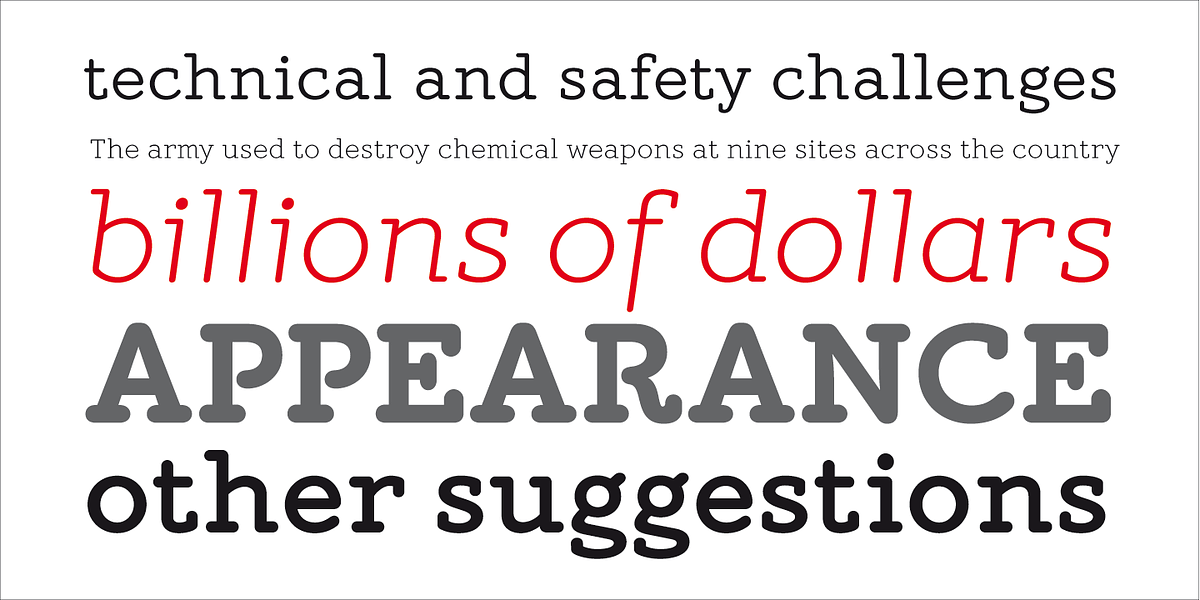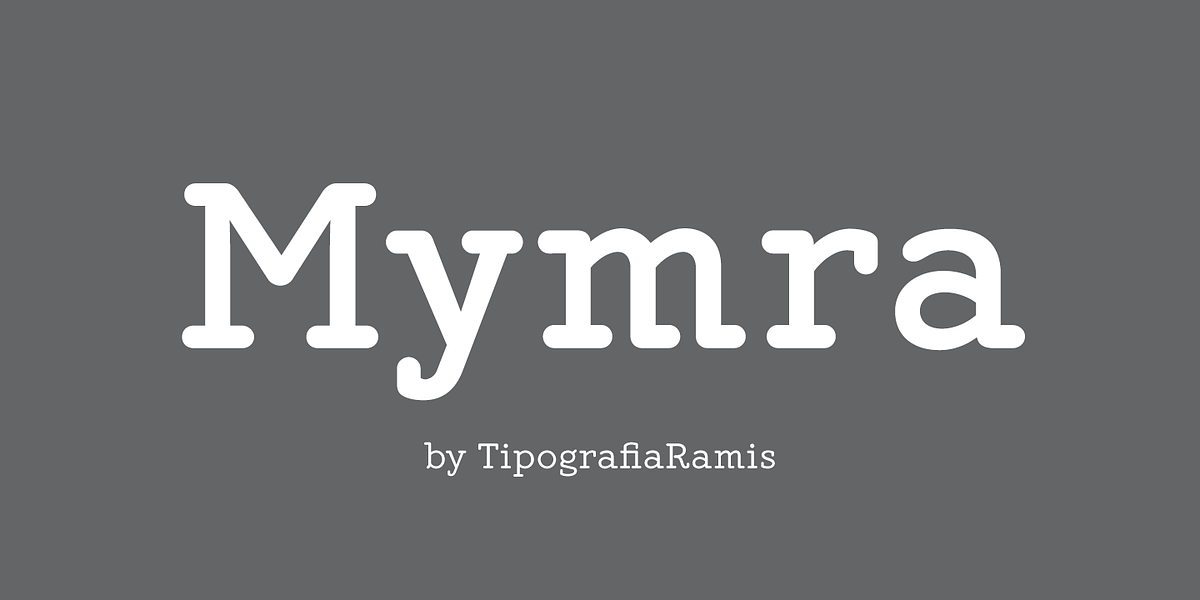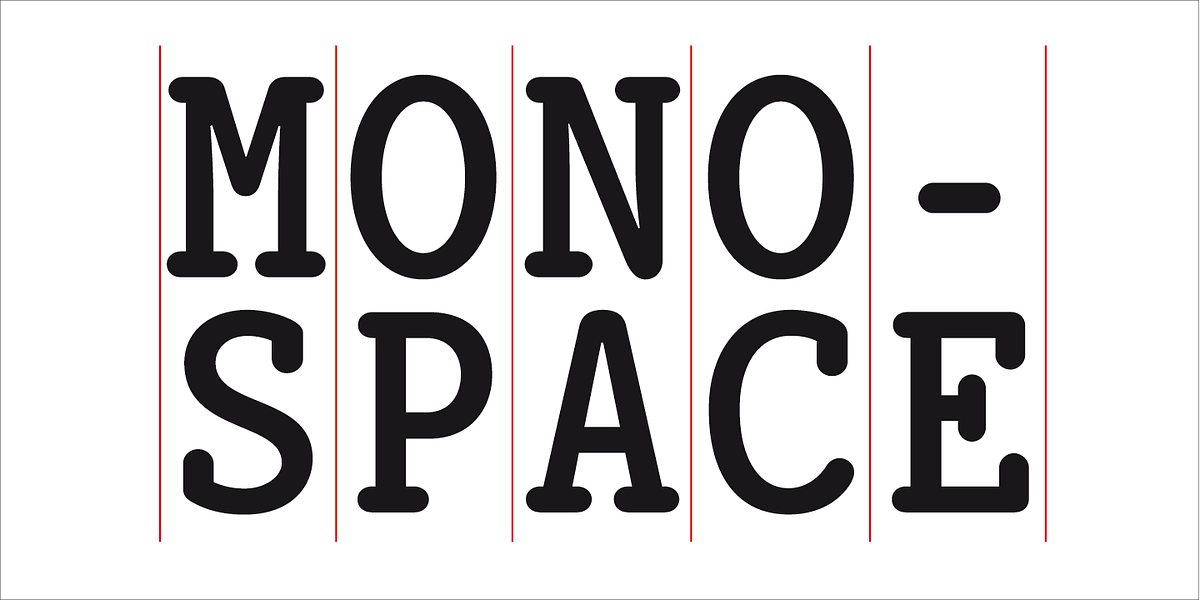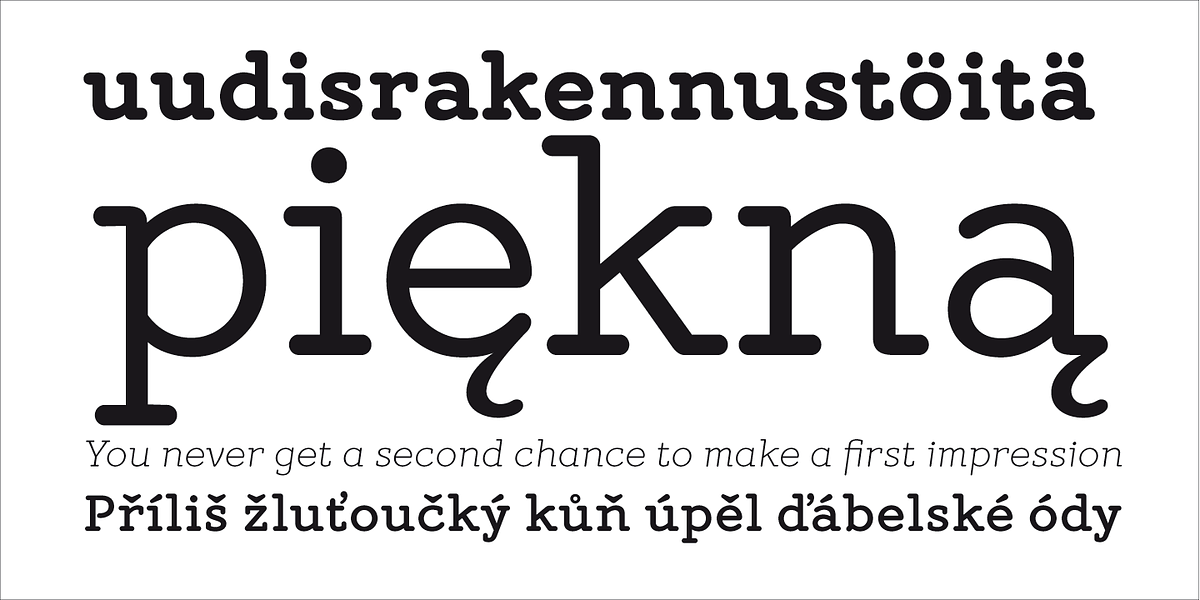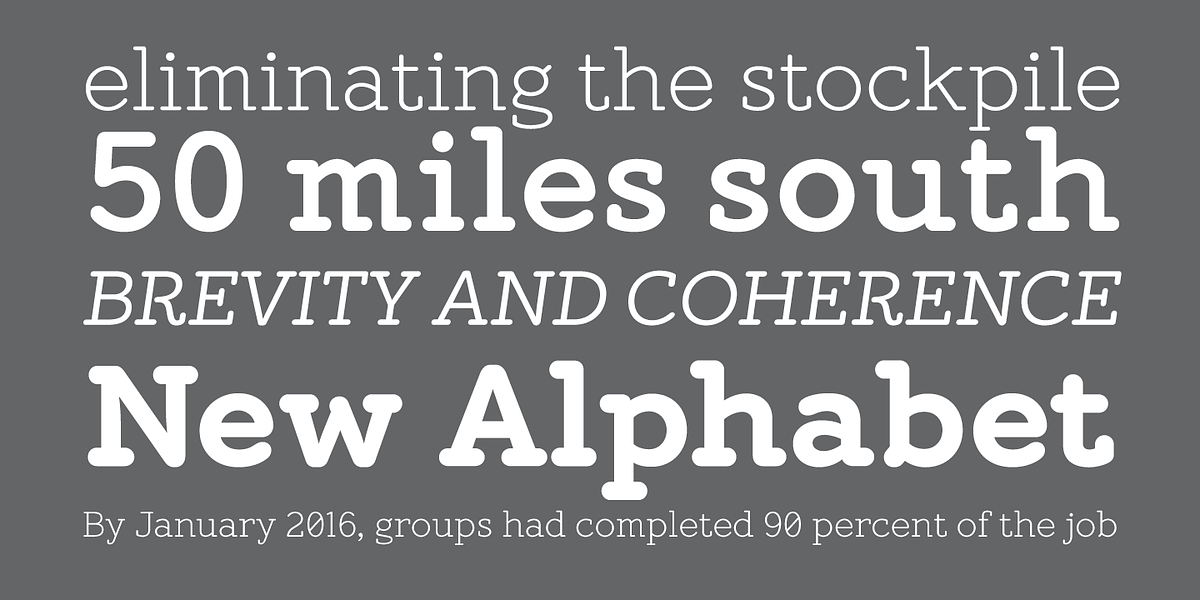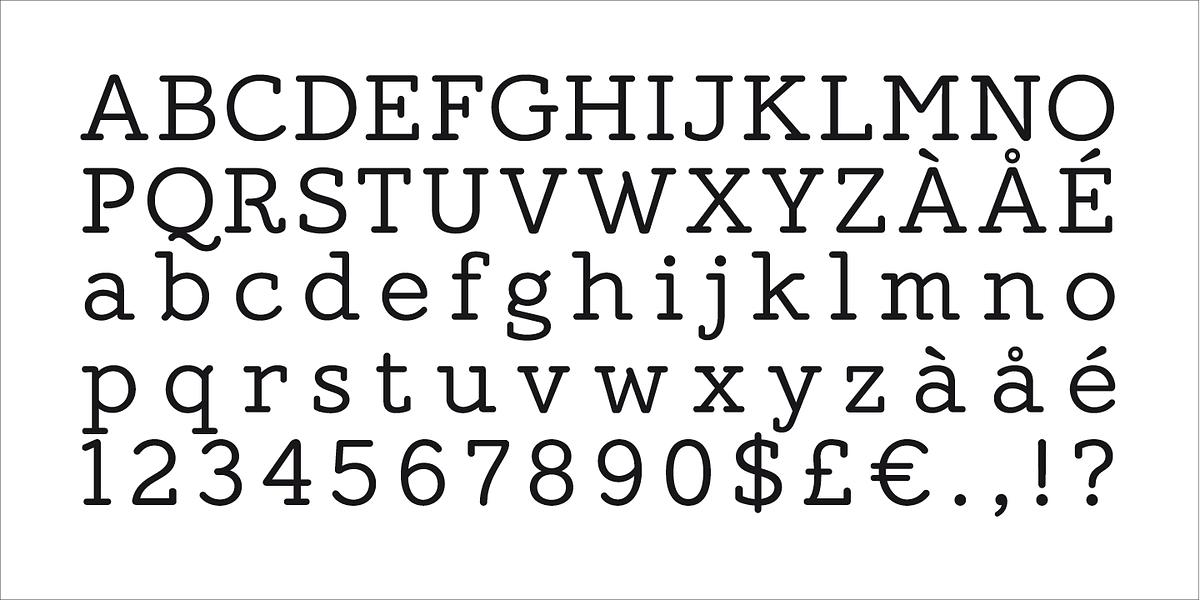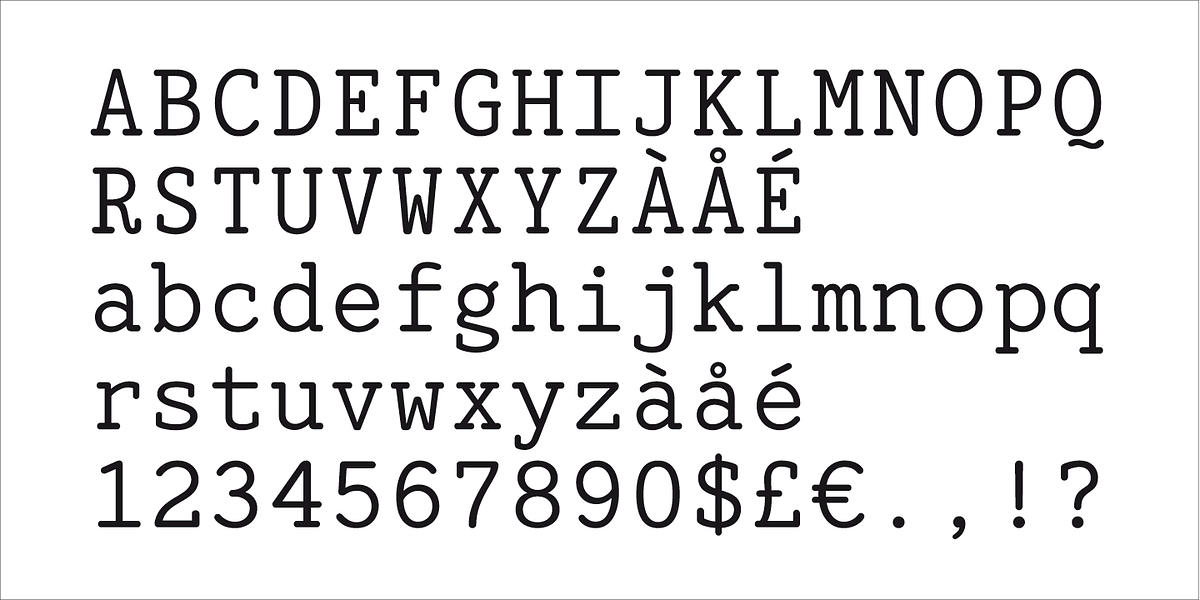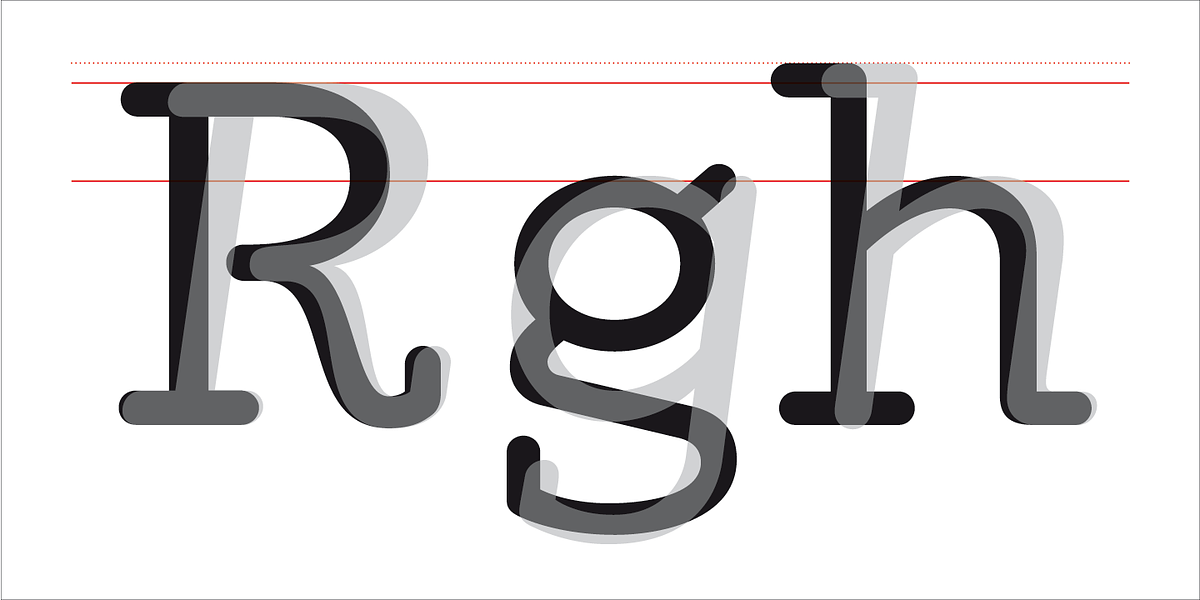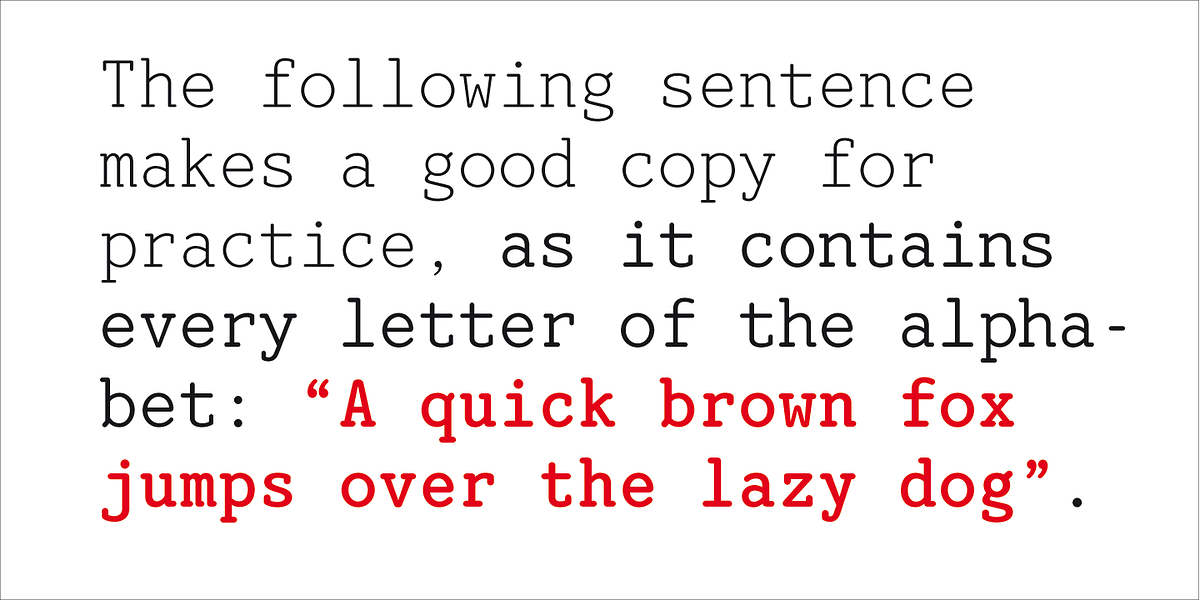
Mymra
Mymra is a typewriter-inspired font with rounded geometric slab serif details. It comes in four weights (thin, regular, bold and black) making it suitable for both body text and display applications. The typeface was originally released in 2009 as Mymra Forte and Mymra Mono and has been updated to support more Latin languages.